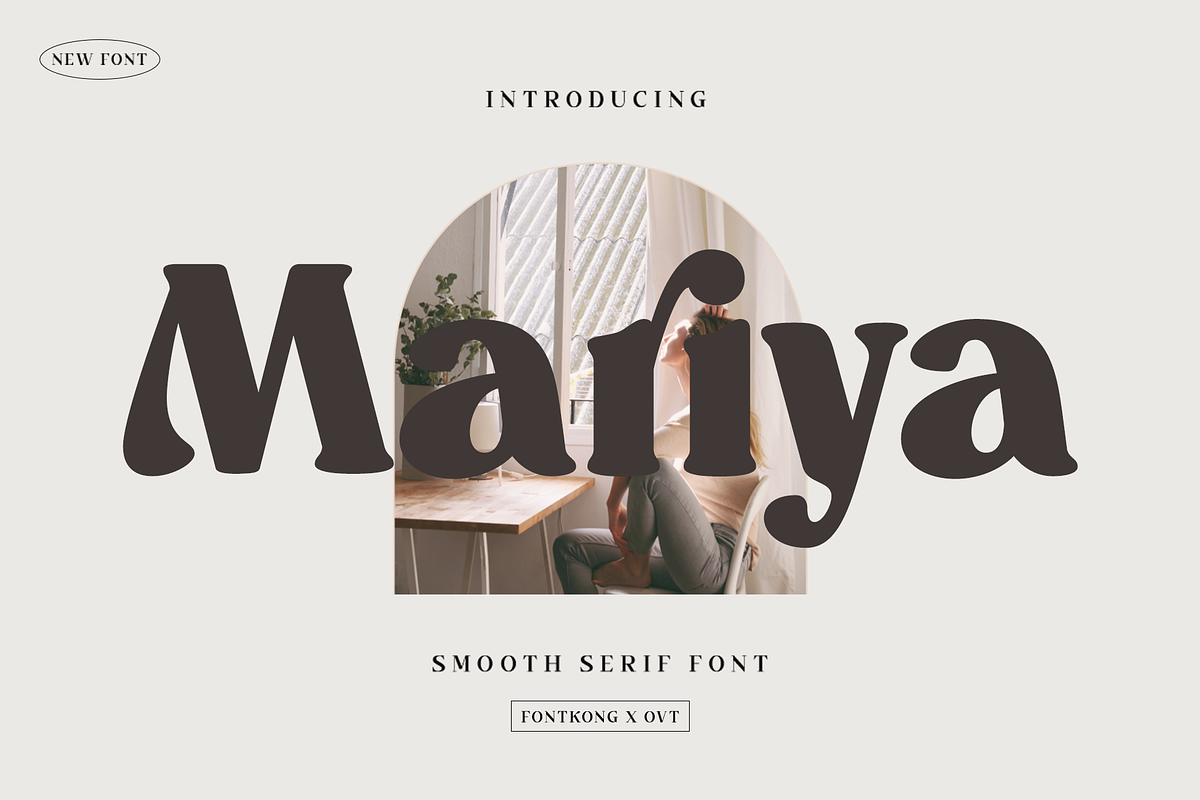
Mariya - Smooth Serif Font Free Download
Mariya - Smooth Serif Font Free Download is an elegant and modern serif typeface designed with clean curves and soft transitions. Its refined aesthetic makes it an excellent choice for luxury branding, fashion editorials, wedding invitations, and upscale packaging. The graceful serifs and balanced letterforms bring a timeless sophistication to both print and digital layouts.
Whether you’re crafting a magazine spread or developing a high-end logo, Mariya - Smooth Serif Font Free Download provides the perfect blend of classic beauty and modern style. Its legibility and polished look make it versatile for headers, body text, and more. Try it out in your next design project to experience its charm and finesse.